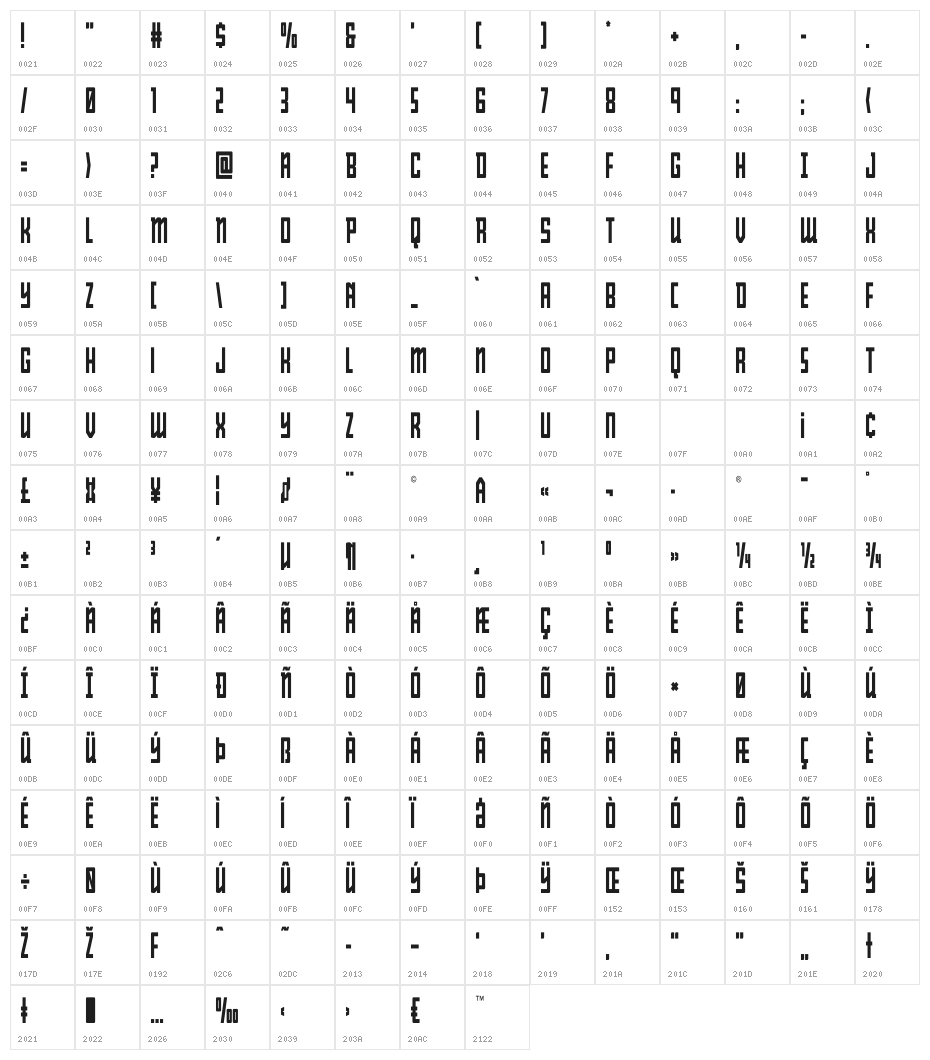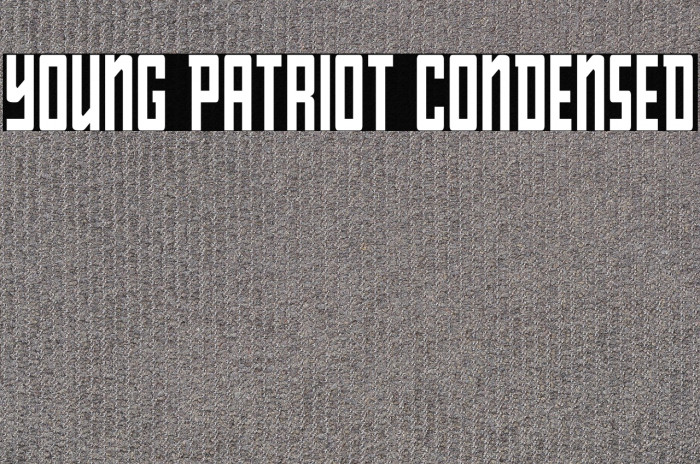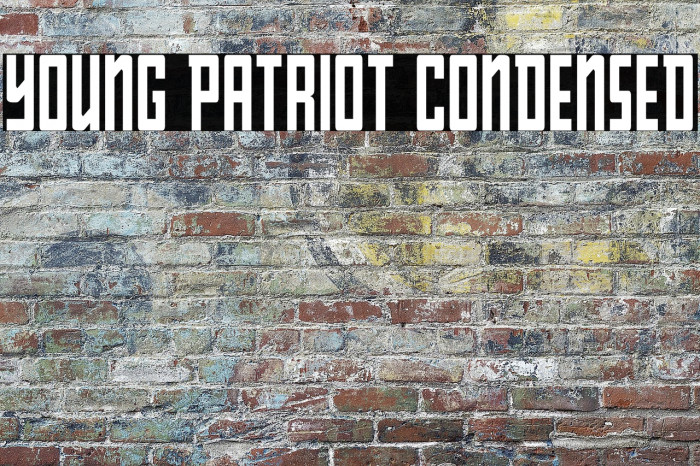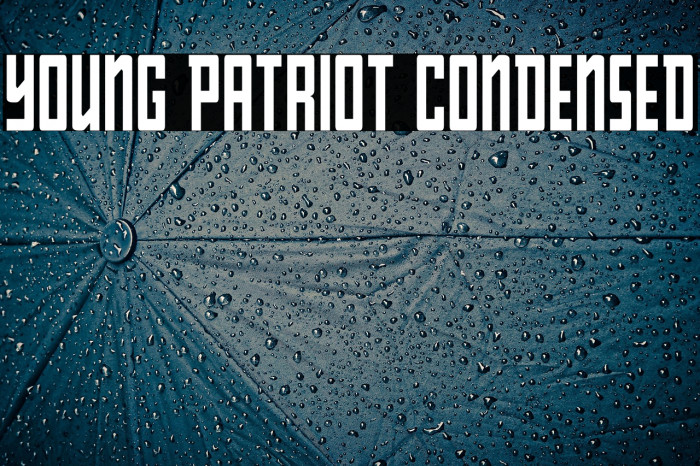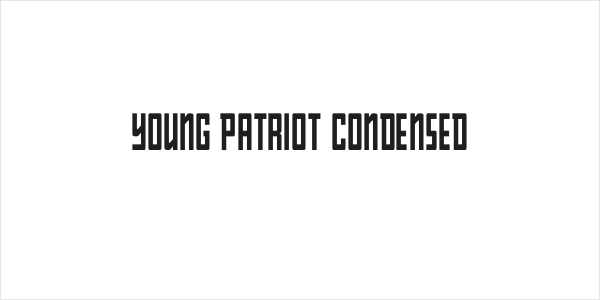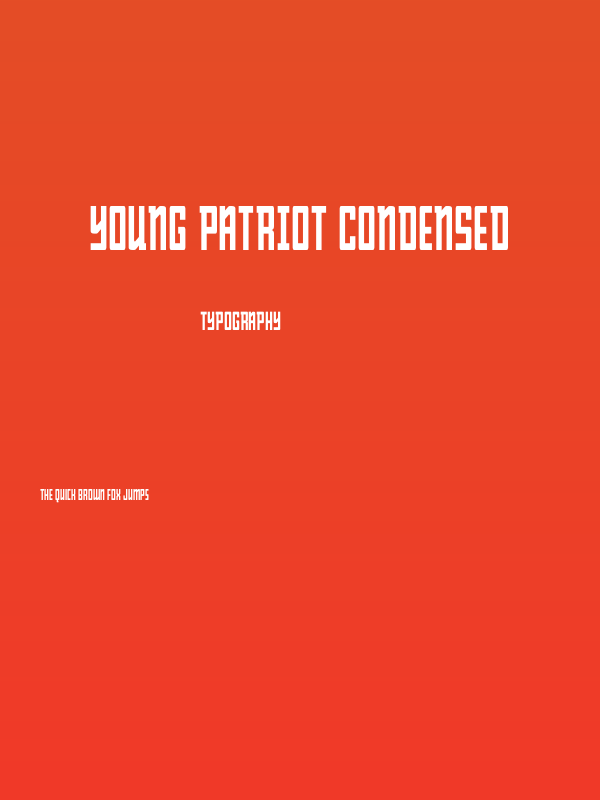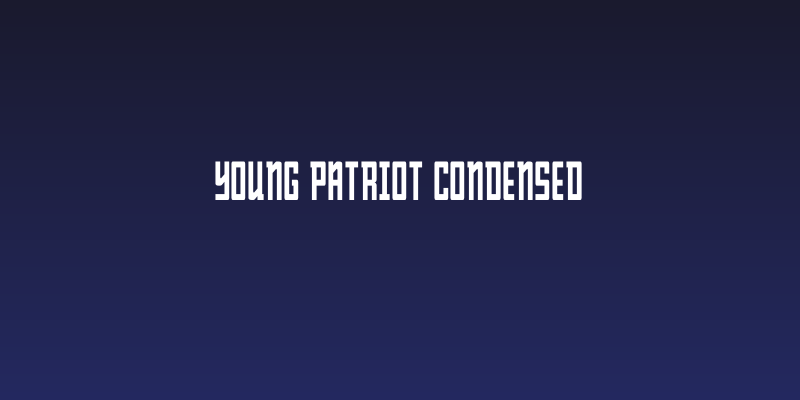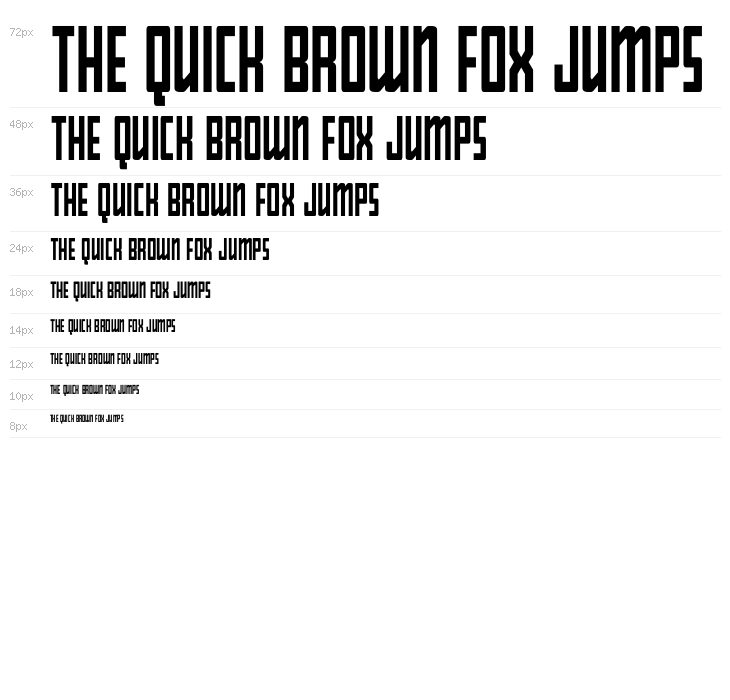
Young Patriot Condensed Font
Young Patriot Condensed Description
This font features a bold and condensed style with a strong, impactful presence. The characters are tall and narrow, giving a sense of height and strength. The strokes are consistent in width, providing a uniform appearance across all letters and numbers. The design is clean and modern, with sharp angles and straight lines that create a sense of precision and clarity. The uppercase and lowercase letters maintain a cohesive look, while the numerals and special characters complement the overall aesthetic. This font is ideal for projects that require a bold statement or a modern, authoritative look.